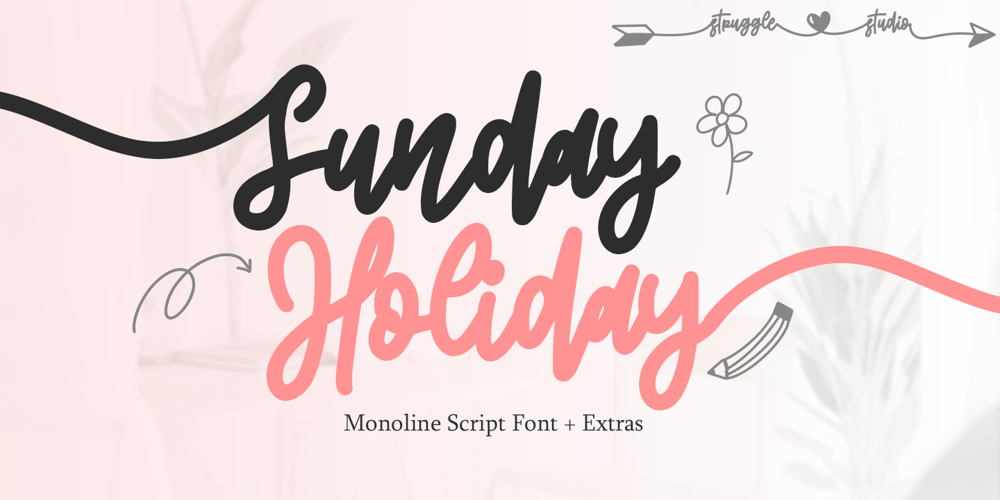
Sunday Holiday Extras Font Family was designed by Andri Kurniawan and published by Struggle Studio. Sunday Holiday Extras contains 2 styles and family package options. Sunday Holiday – is a Monoline Font with Extras and a petite (handwritten and modern look), featuring a sweet and gentle look. This original look will appeal to a variety of crafty ideas, from letterhead and titles to writing implements